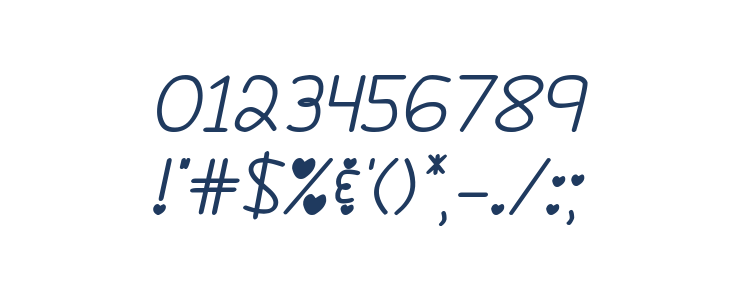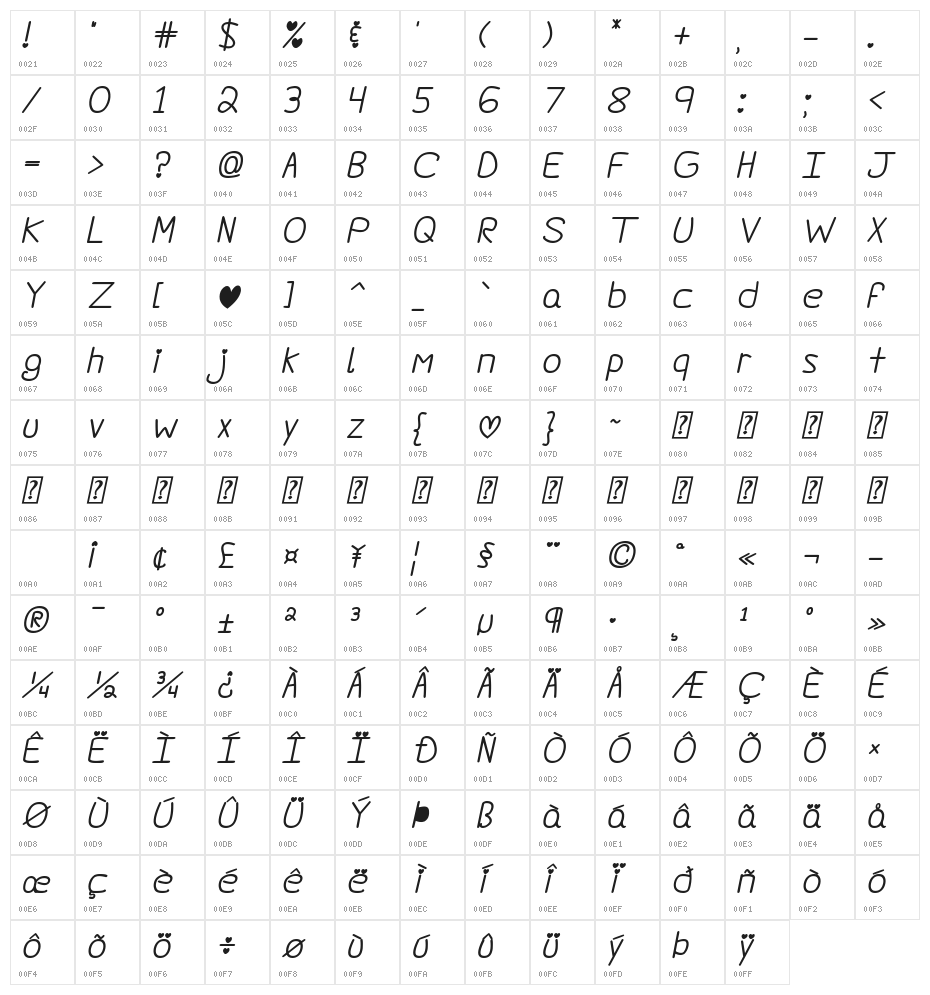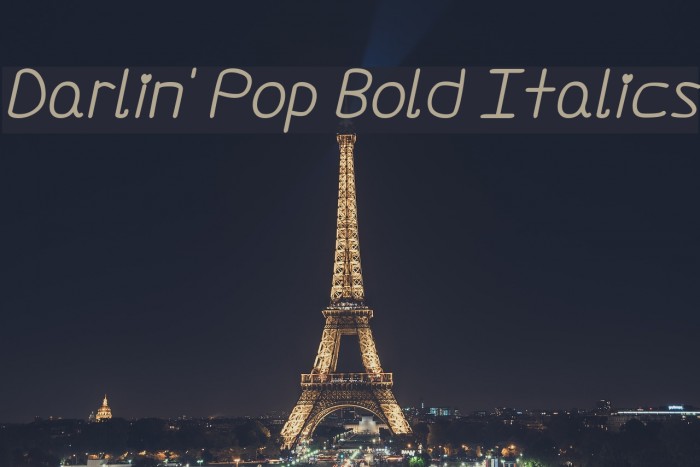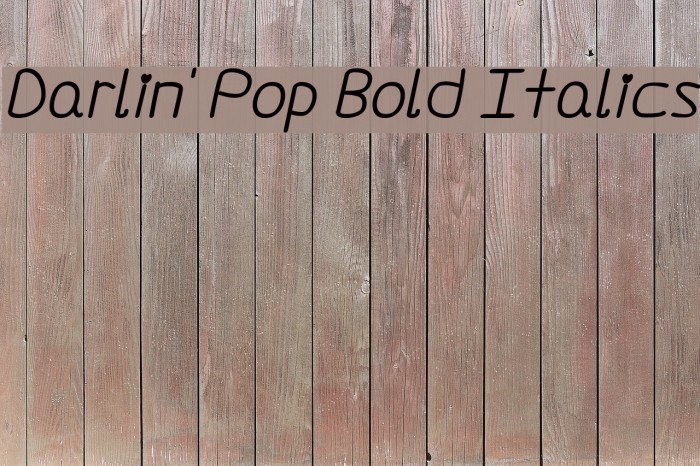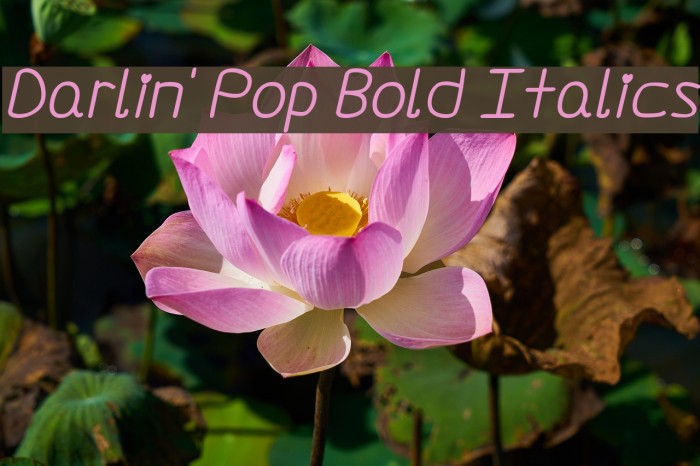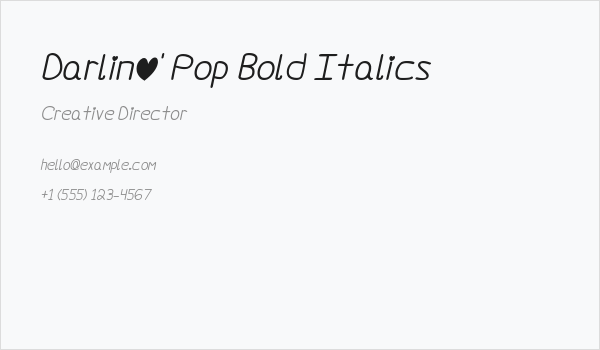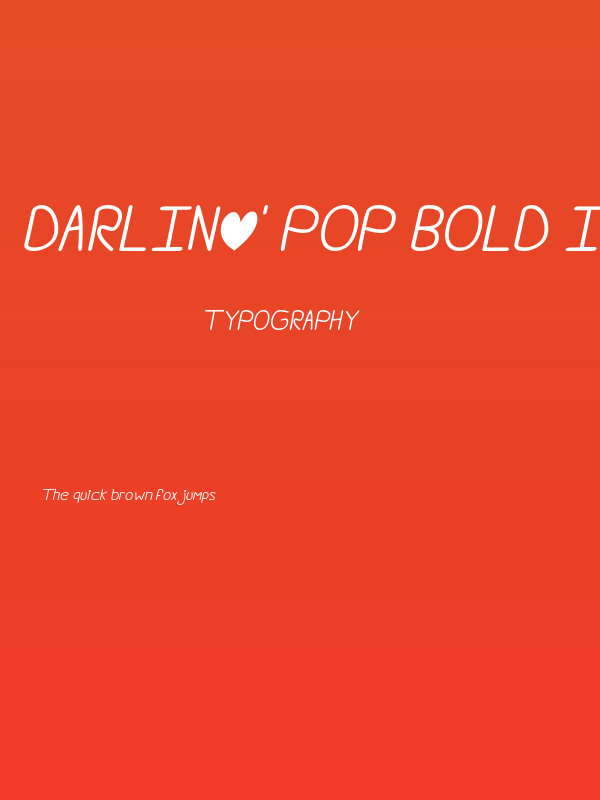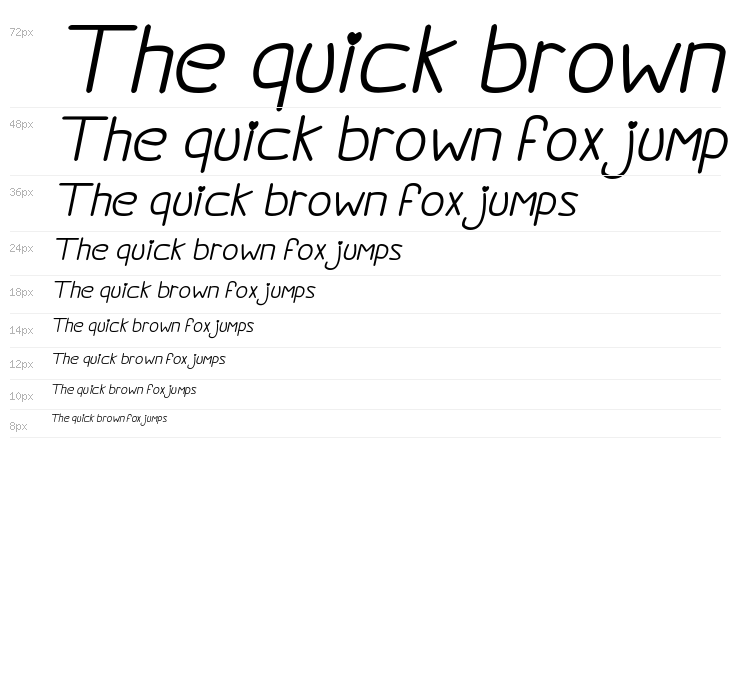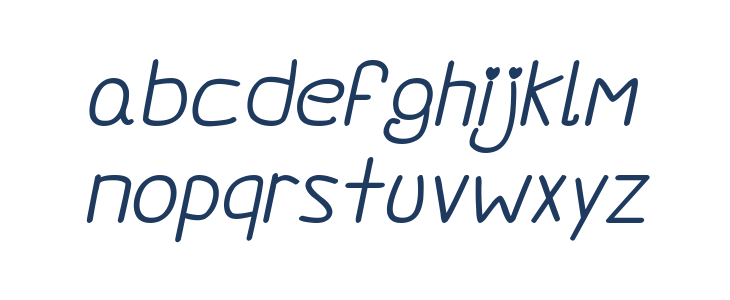
Darlin' Pop Bold Italics Font
Darlin' Pop Bold Italics Description
This playful and whimsical font features a handwritten style with a bold and italicized appearance. The characters are rounded and slightly slanted, giving a sense of movement and energy. The uppercase letters are consistent in height, while the lowercase letters have a charming, informal look. The numbers are clear and easy to read, maintaining the same playful style. Special characters are included, with some featuring unique heart-shaped embellishments, adding to the font's quirky personality. The overall design is friendly and approachable, making it suitable for creative and fun projects.
Proposed ProjectsIdeal for greeting cards, children's book covers, playful branding, and social media graphics.